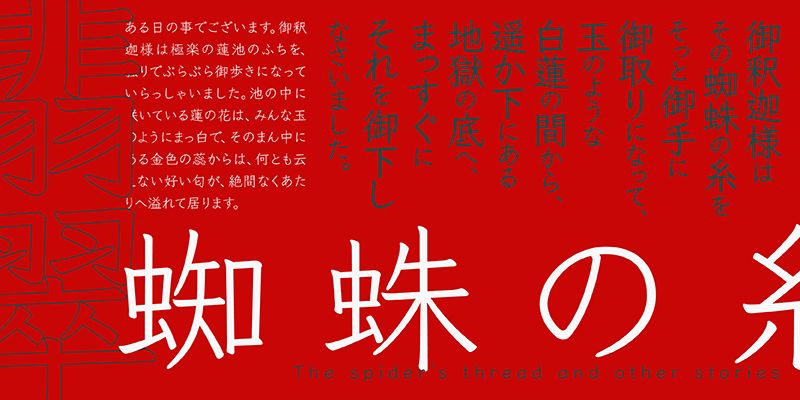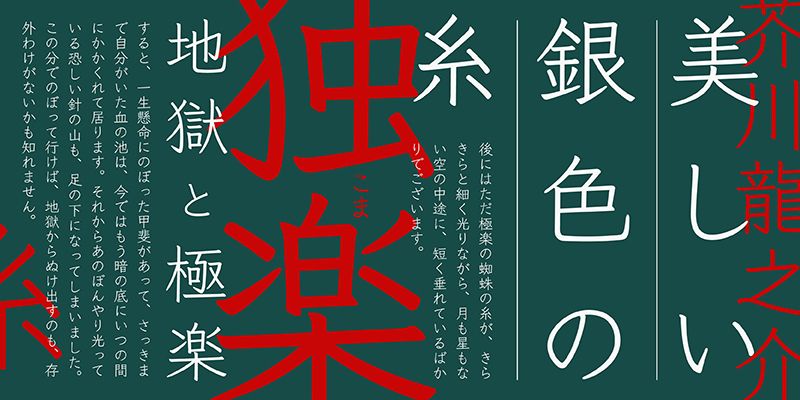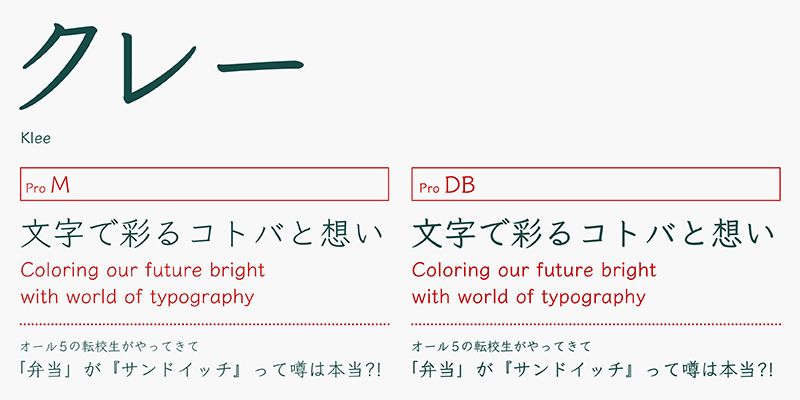
This typeface is characterized by the accented shapes that can be seen in the beginnings and endings of each stroke, and which are typical of a pen script type. Based on handwriting with a pen or pencil, the design has a unique appearance different from other traditional brush script typeface designs such as the Kaisho-tai (Regular script) or Kyokasho-tai (Textbook) styles. This typeface is suitable for body text composition.